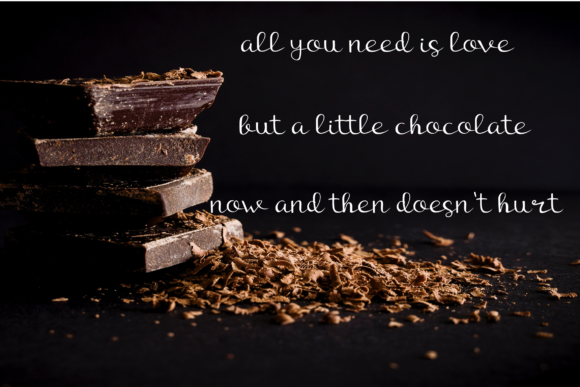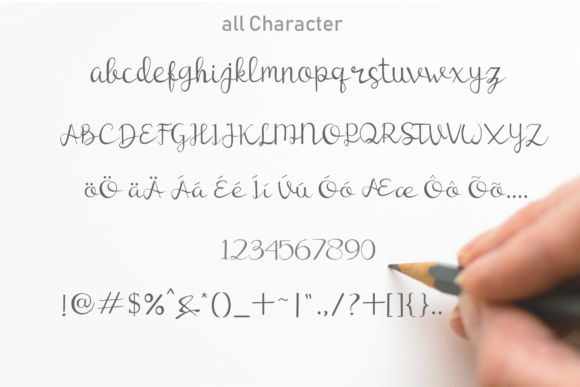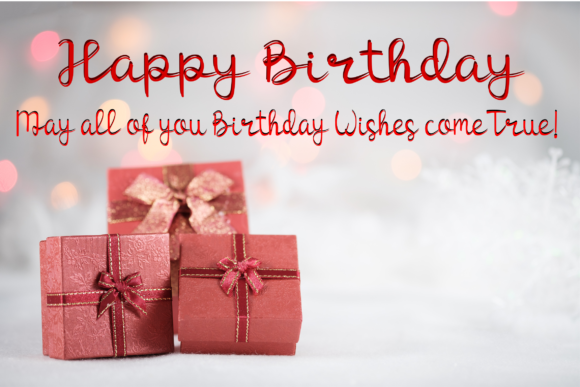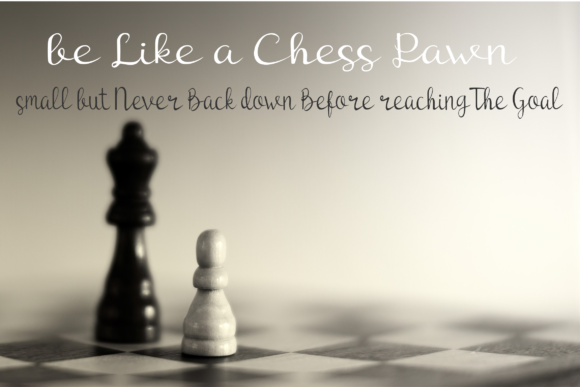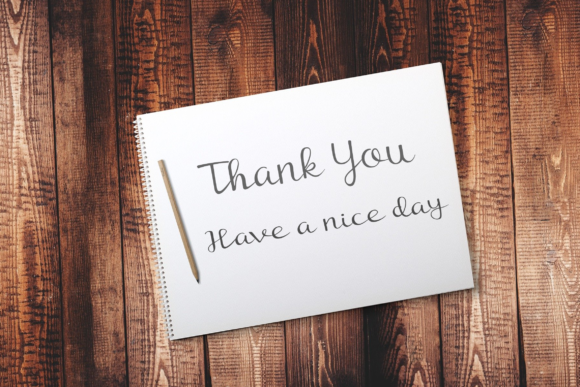
Gheenie Font
About Gheenie Font
Gheenie is a cute and gorgeous script font that feels familiar, yet fresh. This monoline script will add a personal feel to any design!